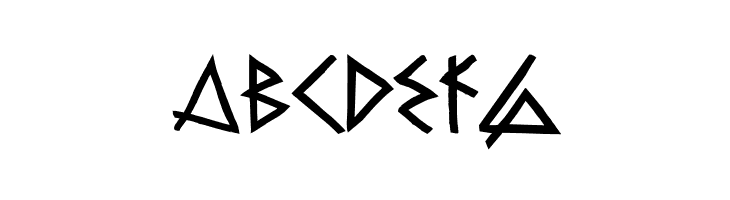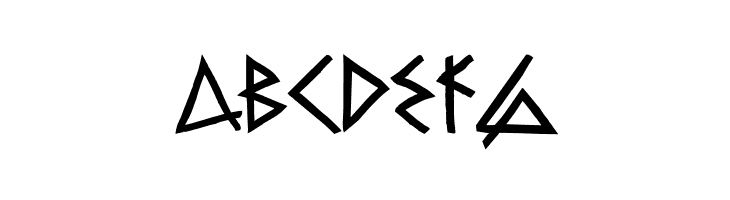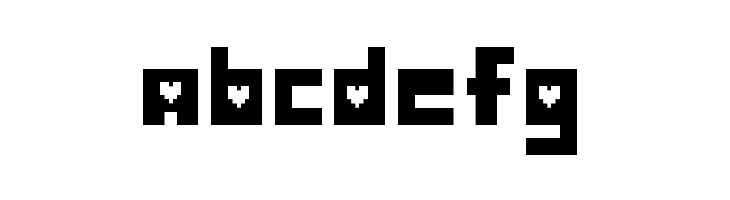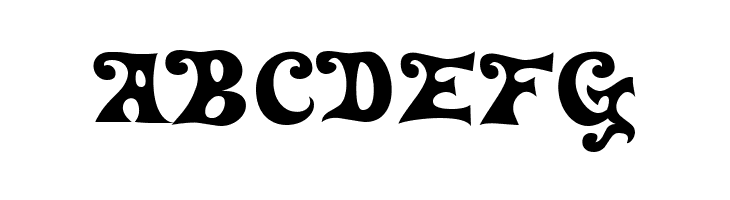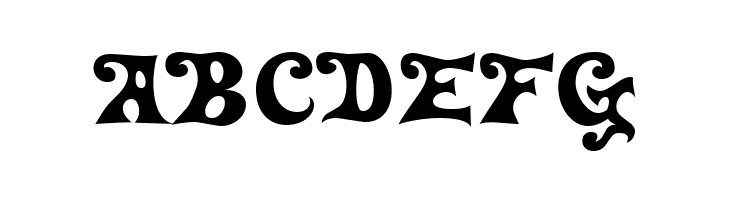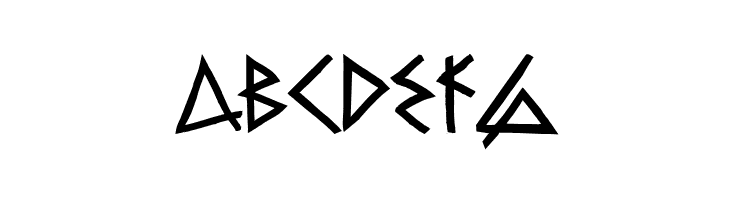
A bold, playful font with exaggerated serifs and whimsical curves.
A bold, playful font with whimsical curves and theatrical flair.
A bold, pixelated font with a retro video game aesthetic.
A bold, angular font with a hand-drawn, runic-inspired style.
A bold, angular, graffiti-inspired font with a hand-drawn aesthetic.
A bold, angular, hand-drawn font with a street art vibe.